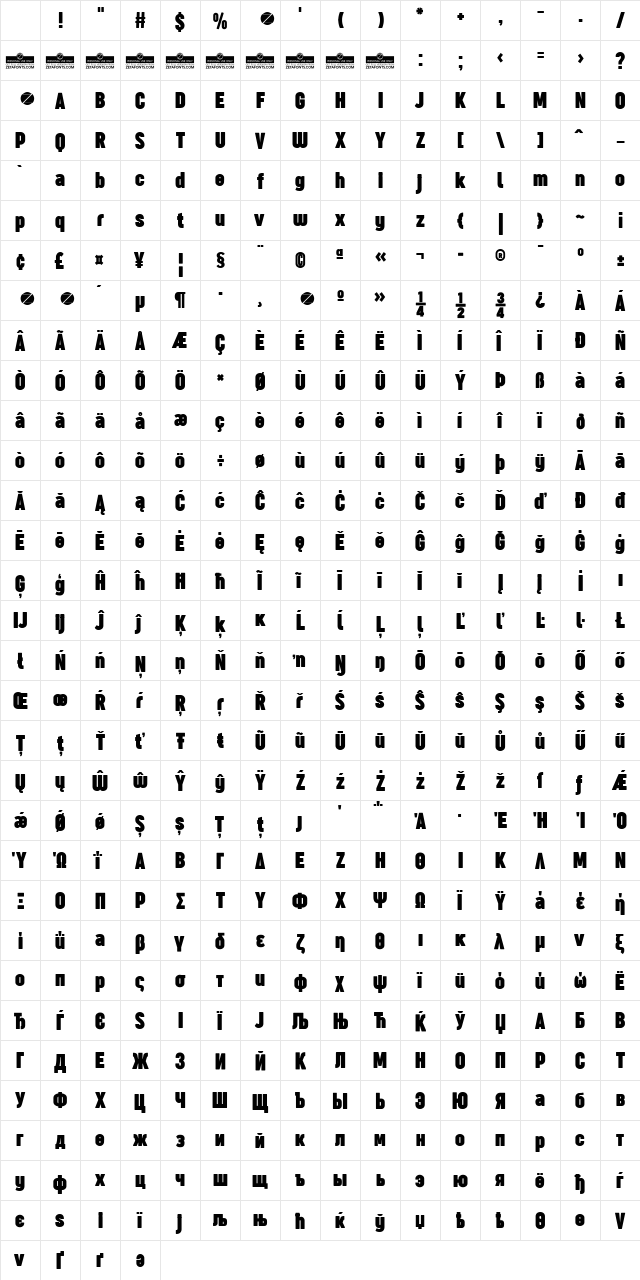
Complete Sugo Pro Classic Trial Bold glyph index. Displaying only characters natively supported by Sugo Pro Classic Trial Bold font.
Sugo Pro Classic Trial wears its vintage influences proudly, with letterforms that recall mid-century signage, classic packaging, and nostalgia-driven design. Its bold stroke weight gives it real presence on the page.
Font Pairing: Combine Sugo Pro Classic Trial with a simple slab or neutral sans - period-accurate companions reinforce the vintage feel without competing for attention.
Pro Tip: Lean into Sugo Pro Classic Trial's period character by pairing it with aged paper textures, muted colour palettes, and vintage illustration styles.